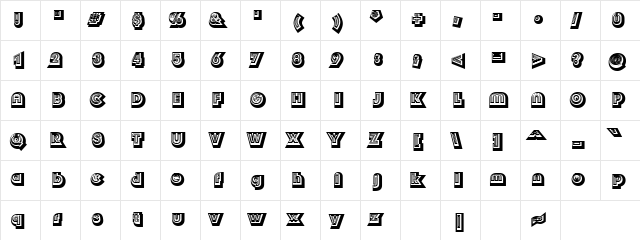
Drop Shadow Regular
Design Context for Drop Shadow Typeface
Drop Shadow is built around its visual character rather than neutral utility — its distinctive forms are designed to make an impression at display sizes.
Font Pairing: Pair with a clean neutral sans-serif for body copy to let Drop Shadow's character lead without overwhelming the composition.
Pro Tip: Treat Drop Shadow as the centrepiece of your typographic hierarchy. One strong heading set in a decorative face can carry an entire layout.